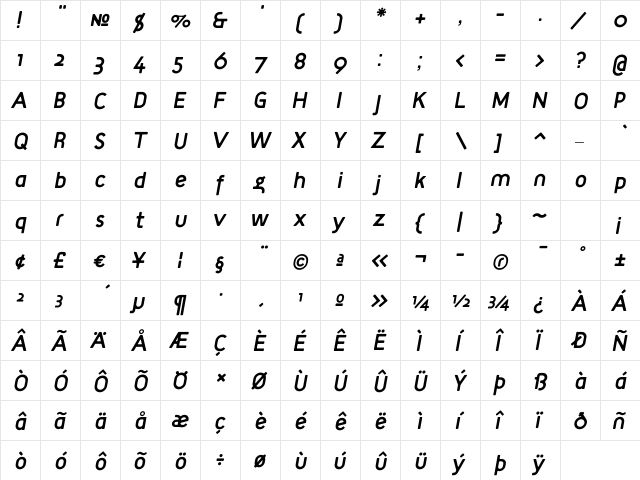
TargetItalic Regular
Design Context for TargetItalic Typeface
TargetItalic takes a measured approach to typography — its balanced proportions and neutral character make it a reliable workhorse for both digital and print work. The slanted form adds forward momentum and visual energy.
Pro Tip: Try TargetItalic for annotation and caption copy alongside an upright companion — the contrast in angle creates a dynamic but ordered typographic system.